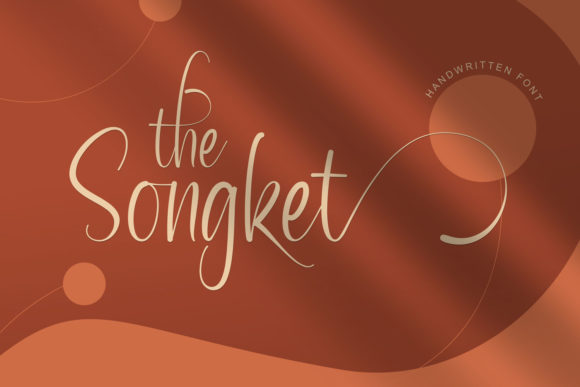
Unleash the allure of the Songket font, a script font masterpiece that captivates with its graceful charm and timeless sophistication. Specially designed for wedding signs, Songket exudes elegance and class, adding a touch of enchantment to your special day. Its delicate strokes, inspired by the intricate artistry of traditional Songket weaving, evoke a sense of romance and heartfelt connection.
With the Songket font, you'll effortlessly create wedding signs that radiate beauty and uniqueness. Its carefully crafted glyphs and ligatures blend harmoniously, offering limitless possibilities for expressing your love and commitment. Picture your names entwined in an elegant script, surrounded by floral motifs and delicate embellishments. The Songket font transforms ordinary words into works of art, capturing the essence of your love story.
Beyond wedding signs, Songket's versatility extends to invitations, greeting cards, logos, branding, and more. Its graceful curves add a touch of sophistication to any design project, evoking a sense of nostalgia and timeless charm. Whether you're a creative professional or a passionate DIY enthusiast, Songket's allure will captivate your imagination and elevate your designs to new heights.
Embrace the beauty of the Songket font, a symphony of elegance and grace, and let your designs speak volumes of love, joy, and heartfelt emotions. Its PUA encoding ensures effortless access to a world of glyphs and ligatures, empowering you to unleash your creativity and create designs that resonate with your audience.